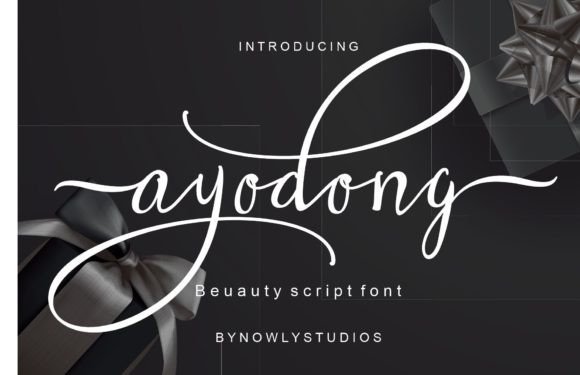
The Perfect Touch of Elegance: Introducing Ayodong Font
Have you ever stumbled upon a beautiful handwritten note in a vintage journal, and instantly felt a rush of creativity? That’s the magic of discovering a unique font that speaks to your soul. Today, we’re excited to share with you the Ayodong Font, a delicate handwritten font that embodies the charm of elegance in every character.
This beautiful font is designed to add a touch of romance to your design projects, making it perfect for wedding invitations, love letters, and other creative endeavors that require beautiful and elegant typography. With its PUA-coded glyphs and swashes, you’ll have access to a world of design possibilities. Whether you’re a professional designer or a hobbyist, the Ayodong Font is a valuable addition to your toolkit.
- Unique Characteristics: Ayodong Font features a unique blend of traditional and modern design elements, with intricate details and subtle textures that add depth and visual interest.
Ayodong Font Review
After diving into the Ayodong Font, I have to say it’s a unique and quirky addition to any design project. Here’s what I liked and didn’t like about it.
- Distinctive letterforms that add a touch of playfulness to text-based designs
- Effective for creating a casual, handwritten feel without being too sloppy
- Works well in both digital and print media, with decent legibility at various font sizes
- Limited character set, which might be a concern for projects requiring non-Latin scripts
- Some letterforms might be too irregular for projects demanding precision and consistency
- Lacks a bold or italic variant, which might limit its versatility in certain design contexts
Overall, the Ayodong Font is a fun, offbeat choice for designers looking to add some personality to their work. While it’s not perfect, its quirks can be a great asset in the right projects. Just be aware of its limitations and choose it wisely.
Tips for Getting the Most Out of the Ayodong Font
Here are a few tips for getting the most out of the Ayodong Font:
- Use the Ayodong Font for creative projects that require a unique and eye-catching font.
- Combine the Ayodong Font with other fonts to create a unique and interesting typography.
The Ayodong Font is commonly used for:
- Brochures and flyers.
Alternatives to Ayodong Font
Playfair Display is a high-end serif font ideal for creating elegant and luxurious designs. It features elegant connections between letters and a touch of sophistication.
Comparison to Ayodong Font: Playfair Display has a more refined and luxurious feel compared to Ayodong Font’s modern and playful vibe. While Ayodong Font is great for casual designs, Playfair Display is better suited for high-end branding, luxury products, and premium publications.
Lato is a sans-serif font designed for digital use. It features clean lines, high legibility, and a friendly feel.
Comparison to Ayodong Font: Lato is a more straightforward and modern font compared to Ayodong Font’s playful and quirky nature. While Ayodong Font is great for creative and expressive designs, Lato is better suited for everyday use, such as blog posts, articles, and websites.
Merriweather is a classic serif font designed for print use. It features a traditional feel, high legibility, and a touch of elegance.
Comparison to Ayodong Font: Merriweather has a more formal and traditional feel compared to Ayodong Font’s modern and playful vibe. While Ayodong Font is great for casual designs, Merriweather is better suited for academic papers, publications, and formal documents.